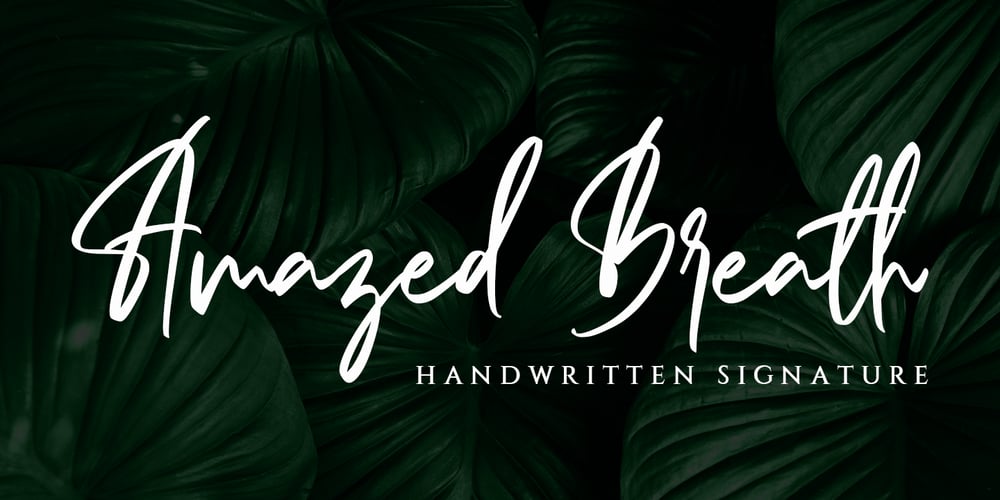
Amazed Breath Font Family was designed by Abdul Malik Wisnu and published by Almarkha Type. Amazed Breath contains 2 styles and family package options. Amazed Breath is a classy script font that comes in Regular and Slant. Inspired by luxury, this font will look classy and awesome in many ways in your latest project. Amazed Breath is perfect for logos and branding, photography, invitations, watermark, advertisements, product designs, stationery, wedding designs, labels, product packaging, special events or anything that needs a handwritten taste.